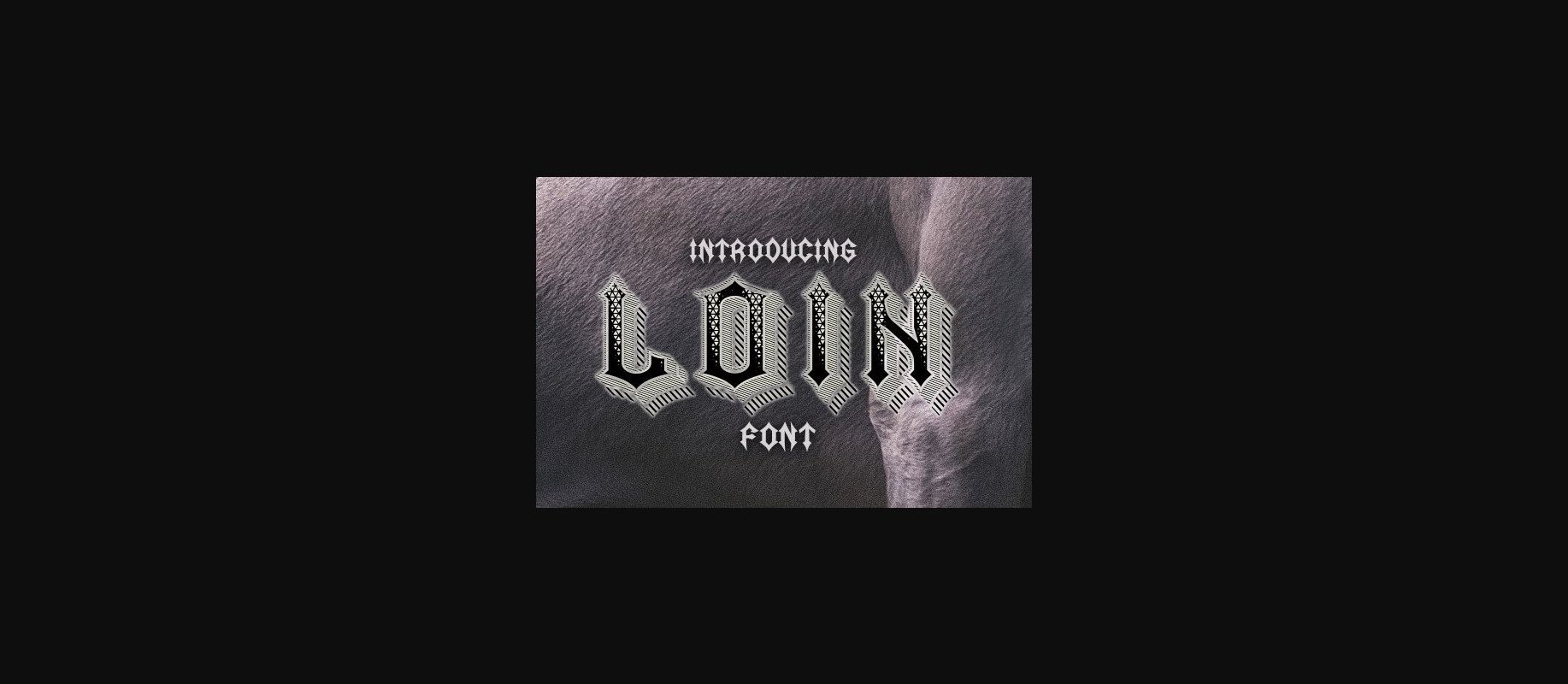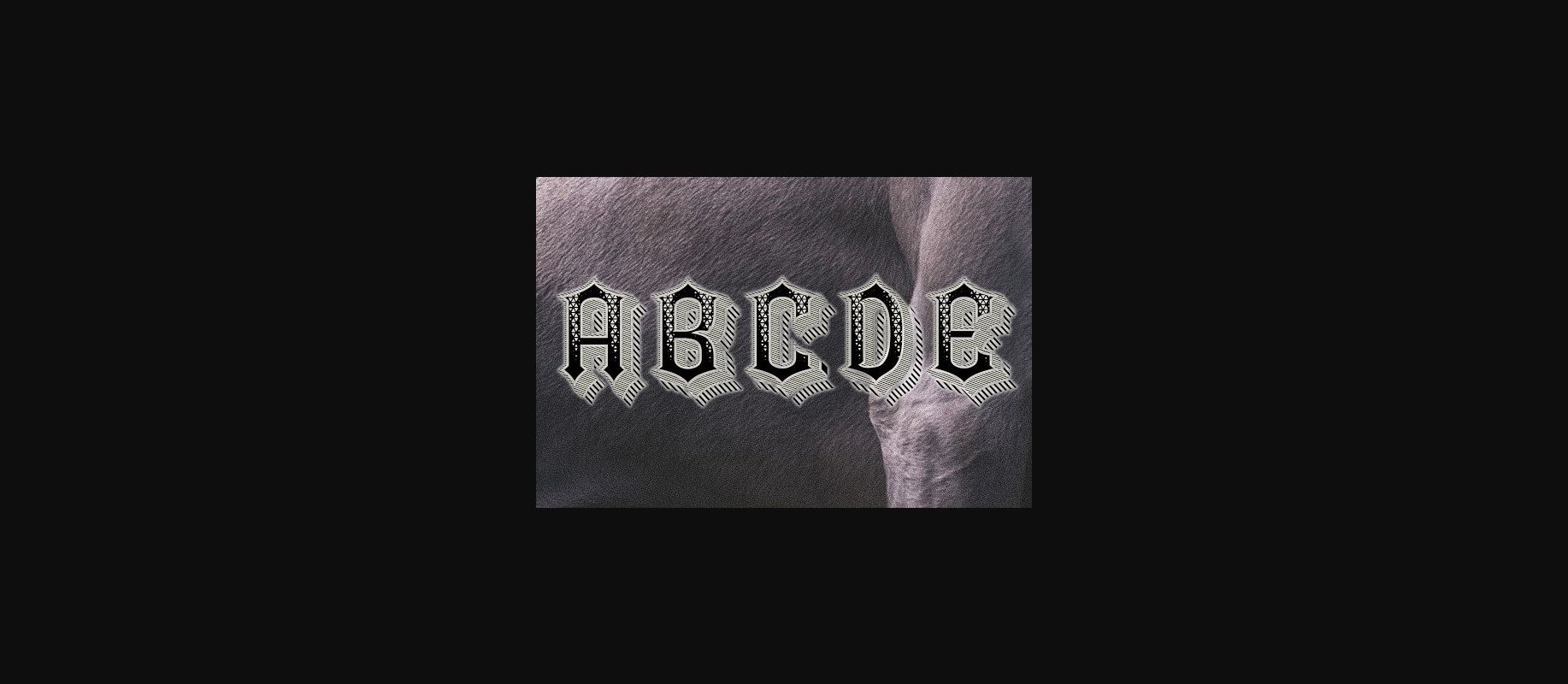
Loin Font
About Loin Font
Loin is an awesome gothic-inspired decorative font that will look awesome on your best projects. Use this font on logos, banners, and posters.